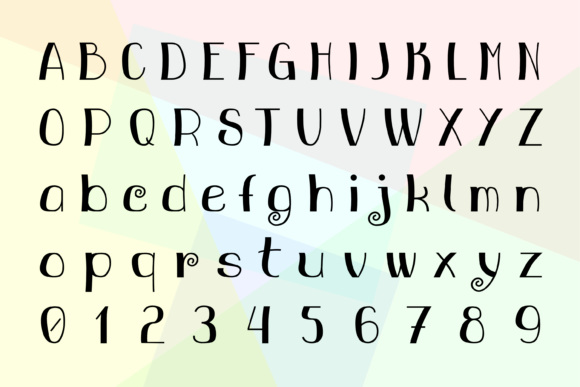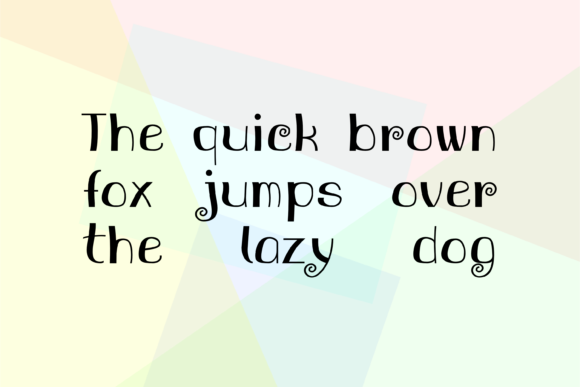
Introduction to Buckley Junior Font
Buckley Junior is a cool and distinct display font.
This font is neatly crafted and highly detailed Whatever the topic, this font will be a wonderful asset to your font library, as it has the potential to enhance any creation.
Key Features of Buckley Junior Font
Why Choose Buckley Junior Font?
Buckley Junior Font offers exceptional quality and versatility, making it a valuable addition to your design toolkit. Whether you’re creating for personal projects or commercial use, Buckley Junior Font delivers professional results.